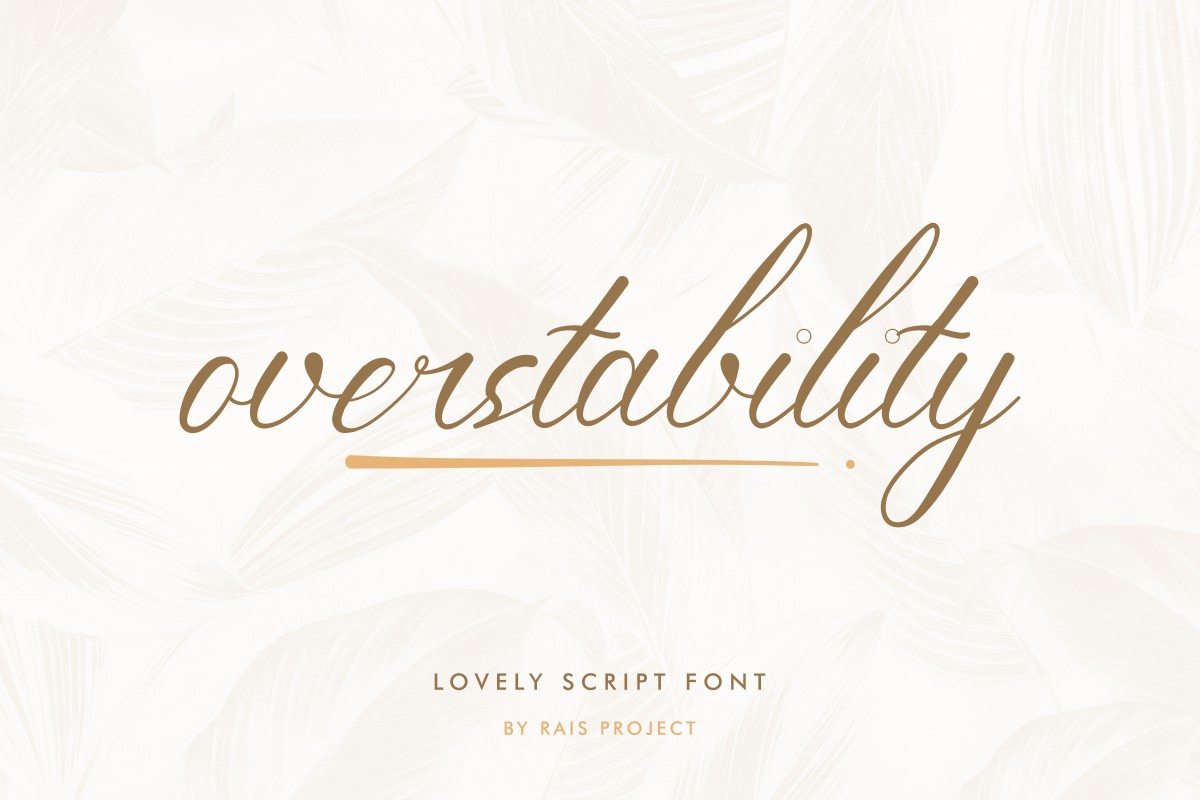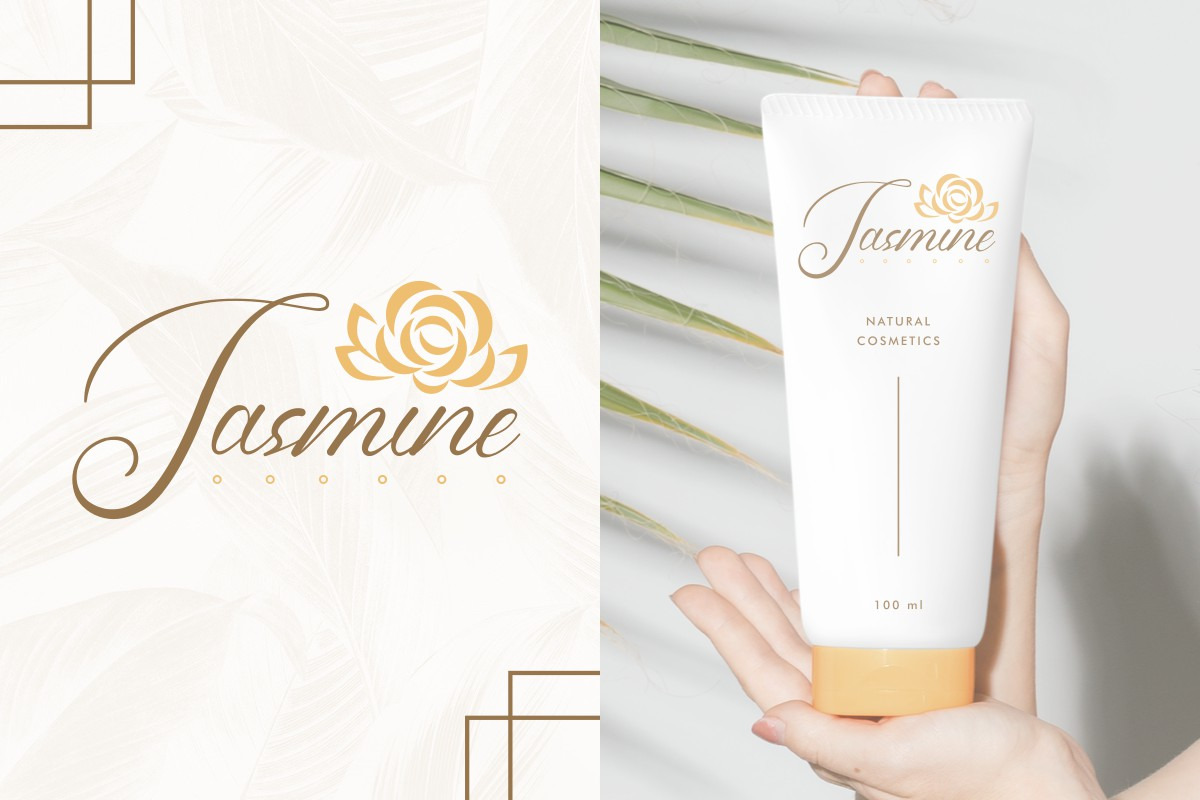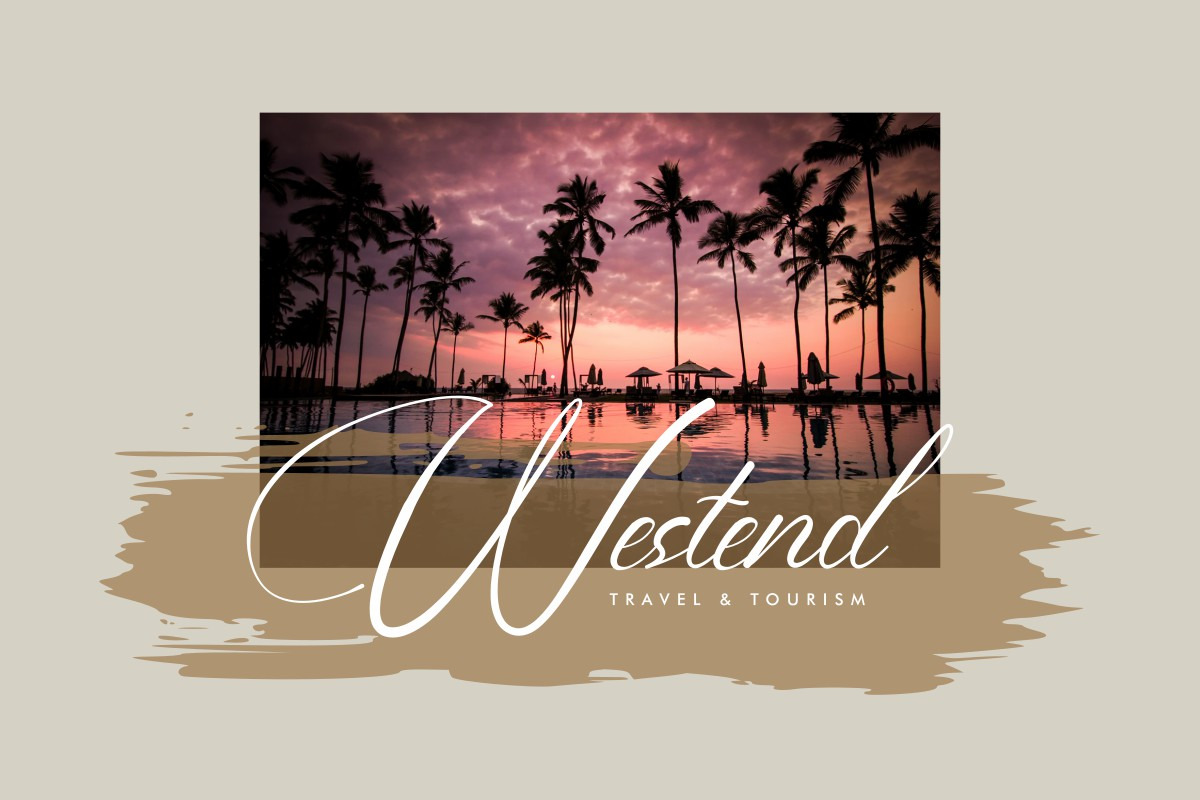
Overstability Handwriting Font
Overstability is a beautiful calligraphy handwriting script font with sophisticated style. It will be great for Invitation, branding, watermark, promotion, events, advertising or and any projects that need calligraphy handwriting style.
Overstability Calligraphy Font includes full set of cool uppercase and lowercase letters, numerals, a large range of punctuation and ligatures. All letters has hand-lettered style to make it unique yet cool looking design.